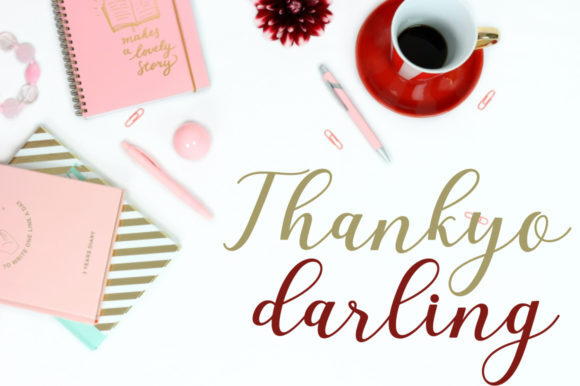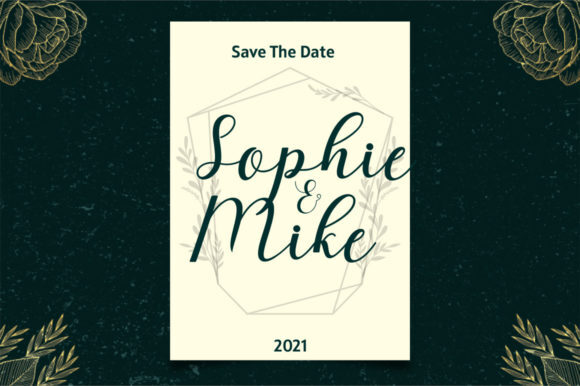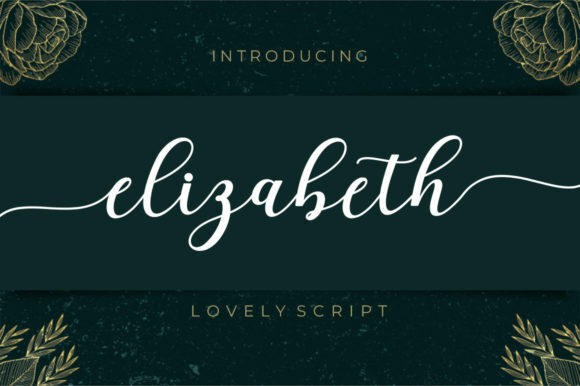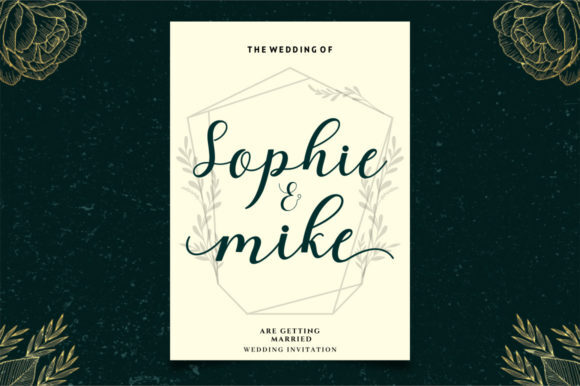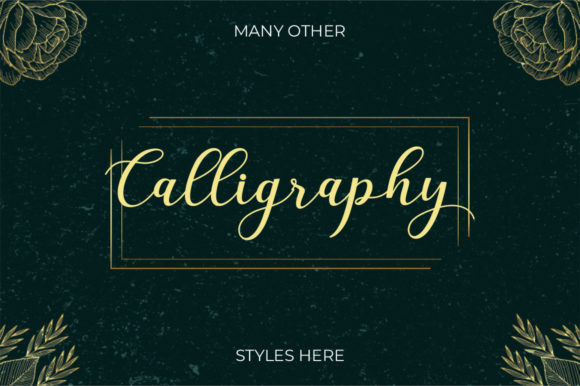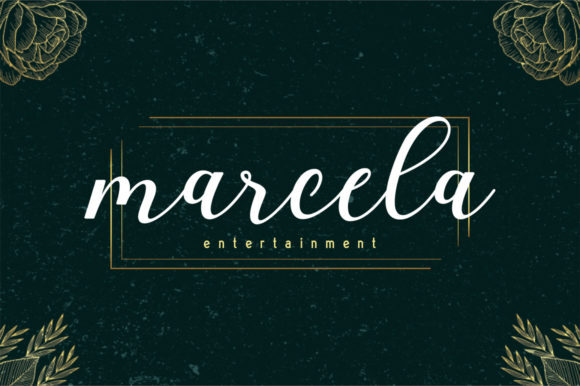
Elizabeth Font
Elizabeth is an elegant script font. Fall in love with its completely different and timeless style and use it to create spectacular designs!